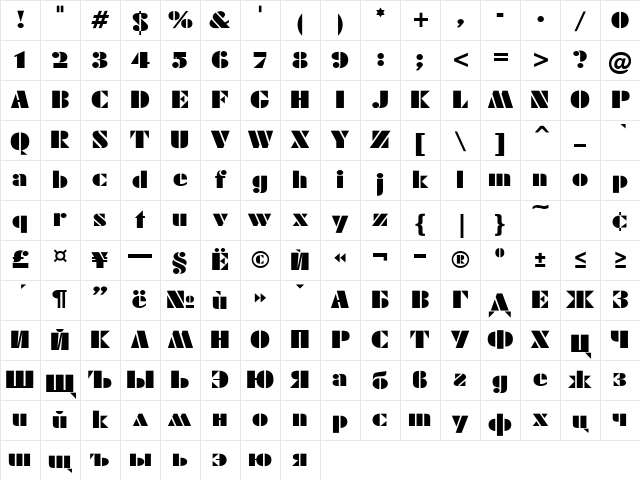
ShablonExt Normal
ShablonExt Family
ShablonExt Normal
Design Context for ShablonExt
ShablonExt is a composed and adaptable typeface that performs quietly and consistently across a wide range of design contexts.